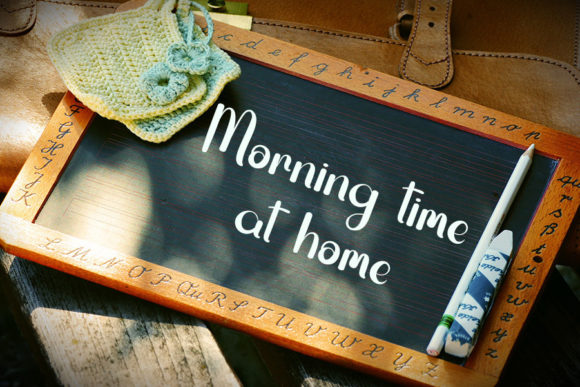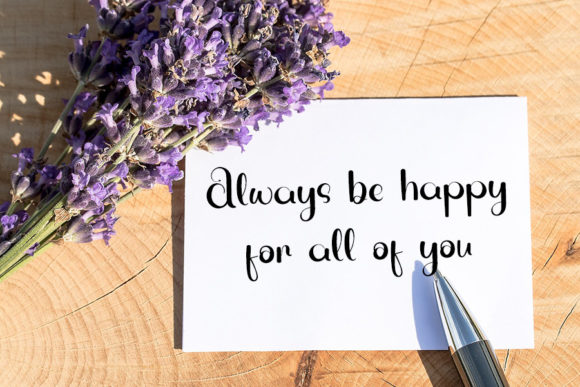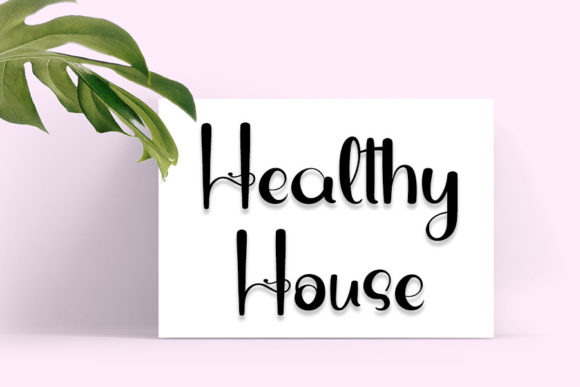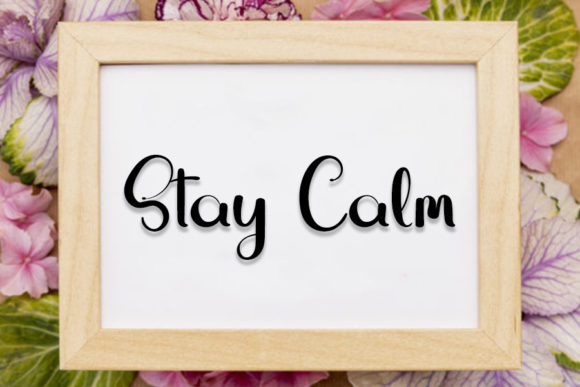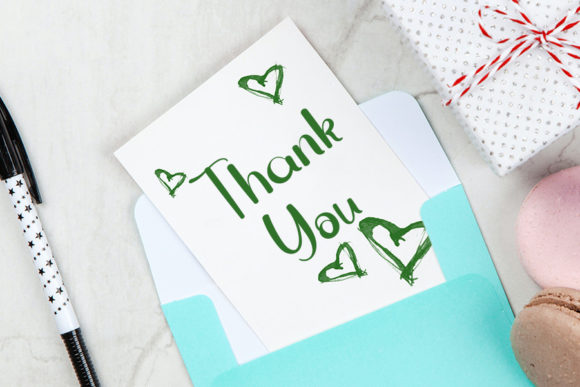
Milky White Font
About Milky White Font
Milky White is a playful and smart handwritten font with an impeccable form, inspired by a timeless calligraphy. Balanced and varied, this font was designed to enhance the beauty of your projects.